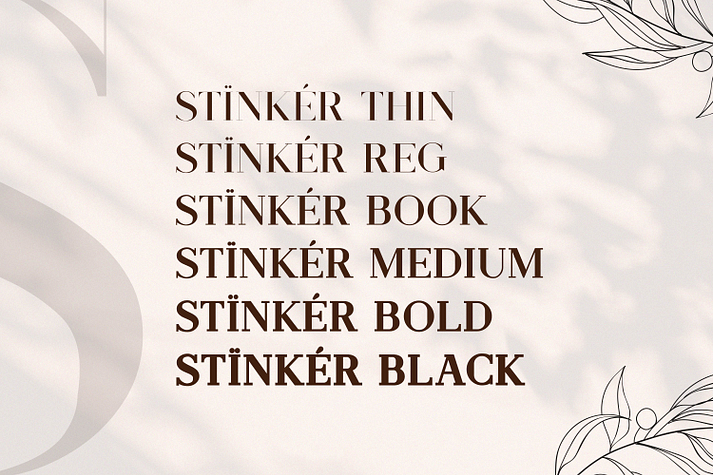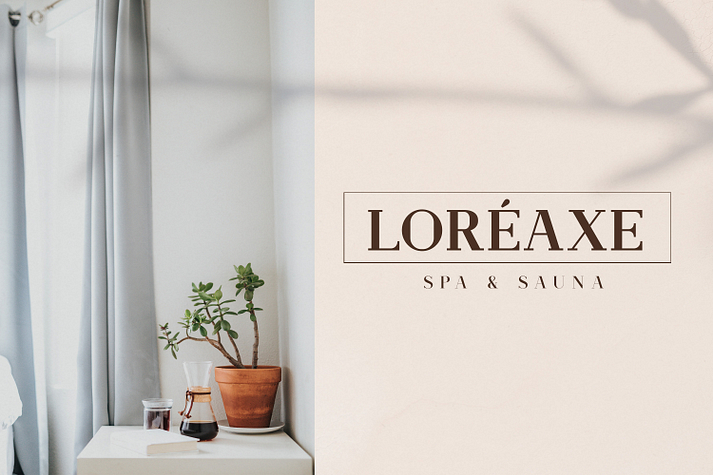
Stinker
Stinker is a display serif and stencil font family. This typeface has twelve styles and was published by Mokatype Studio.
Stinker is a modern-style serif typeface that has been modernized with its unique curves and is beautiful for logos, mastheads, pull quotes & monograms showing both feminine and masculine qualities.
Foundry Mokatype Studio
Styles Display Serif, Stencil